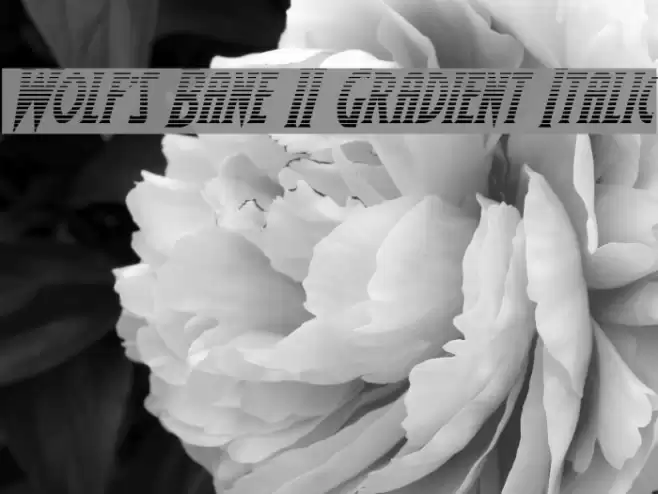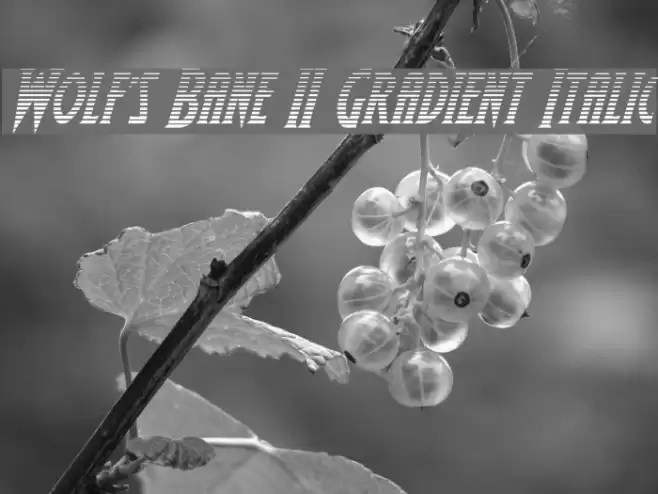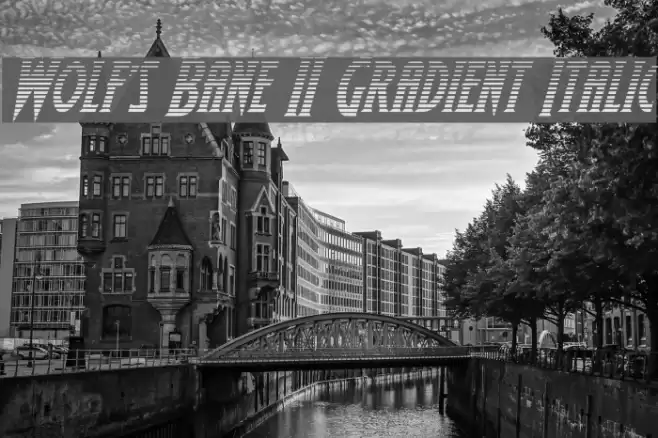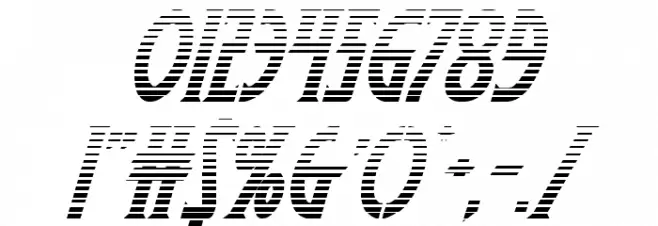
Wolf's Bane II Gradient Italic Font
Wolf's Bane II Gradient Italic Description
This font features a bold, italicized style with a distinctive gradient effect created by horizontal lines. The characters are slanted, giving a dynamic and energetic appearance. The uppercase and lowercase letters maintain a consistent style, with sharp edges and a modern flair. Numbers and special characters are designed to match the overall aesthetic, making this font suitable for eye-catching designs. The gradient effect adds depth and a sense of motion, making it ideal for projects that require a bold statement.
A bold, italicized font with a gradient effect and modern style from Retro fonts.
- Proposed Projects: Ideal for posters, logos, and headlines that require a bold and dynamic look.